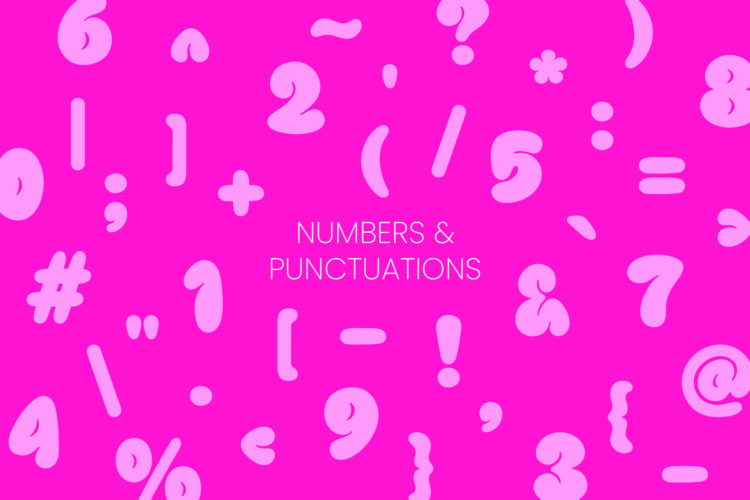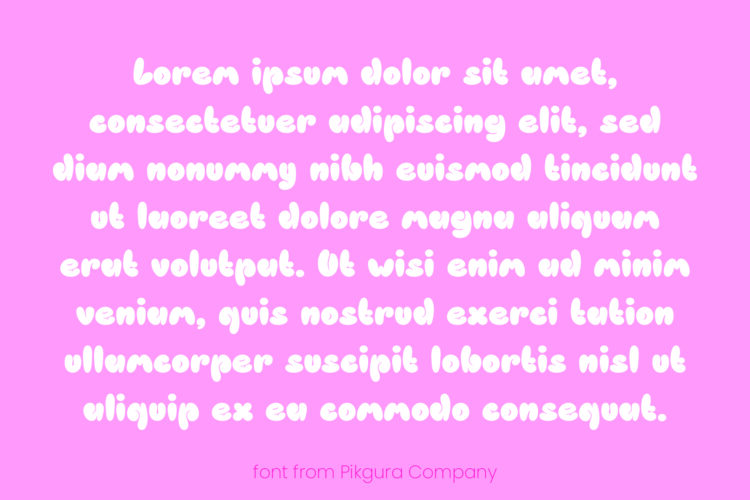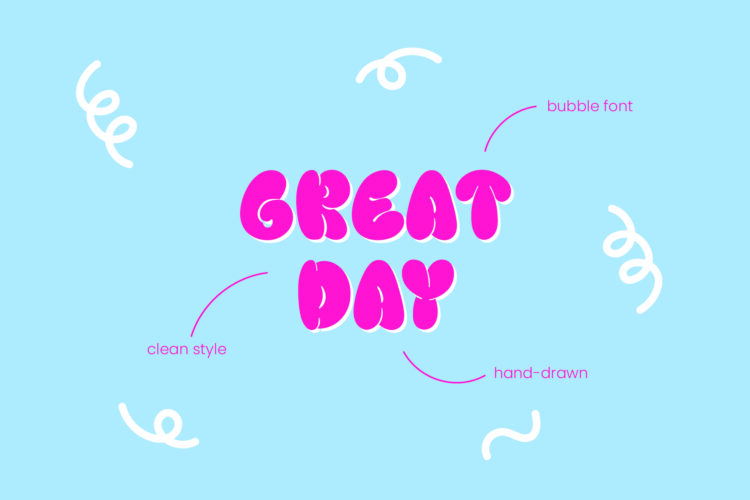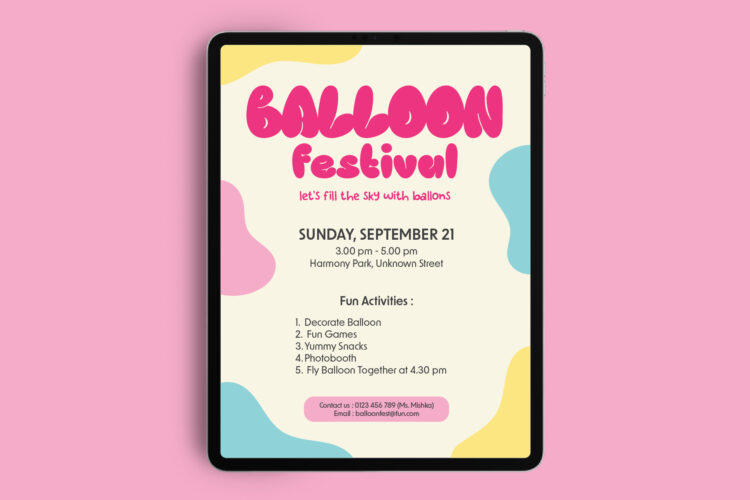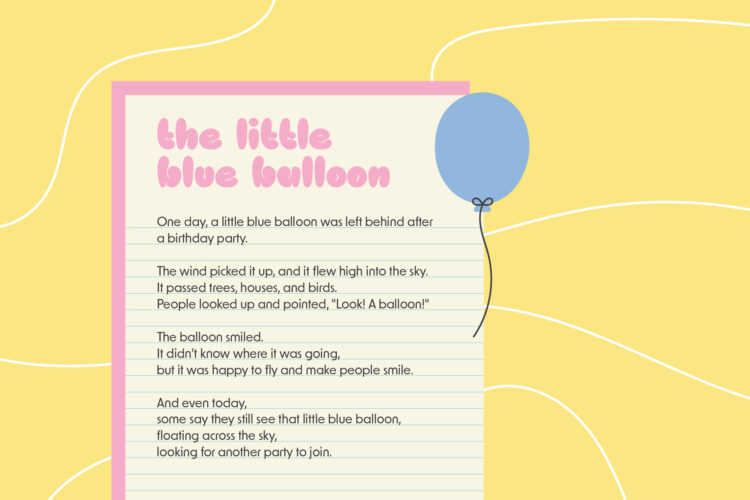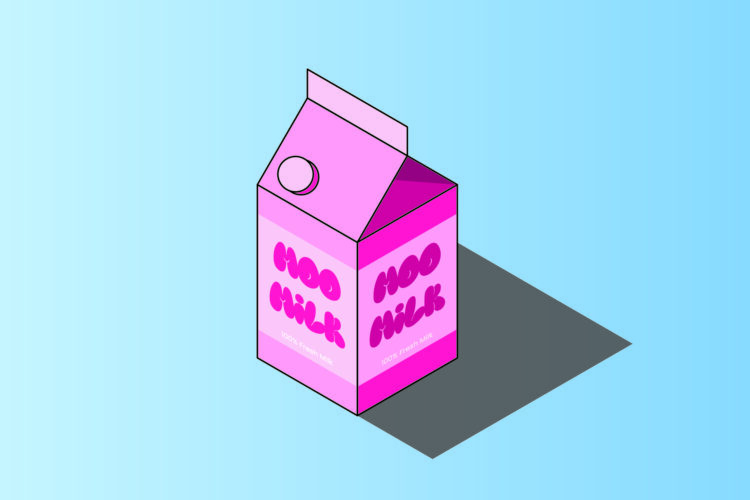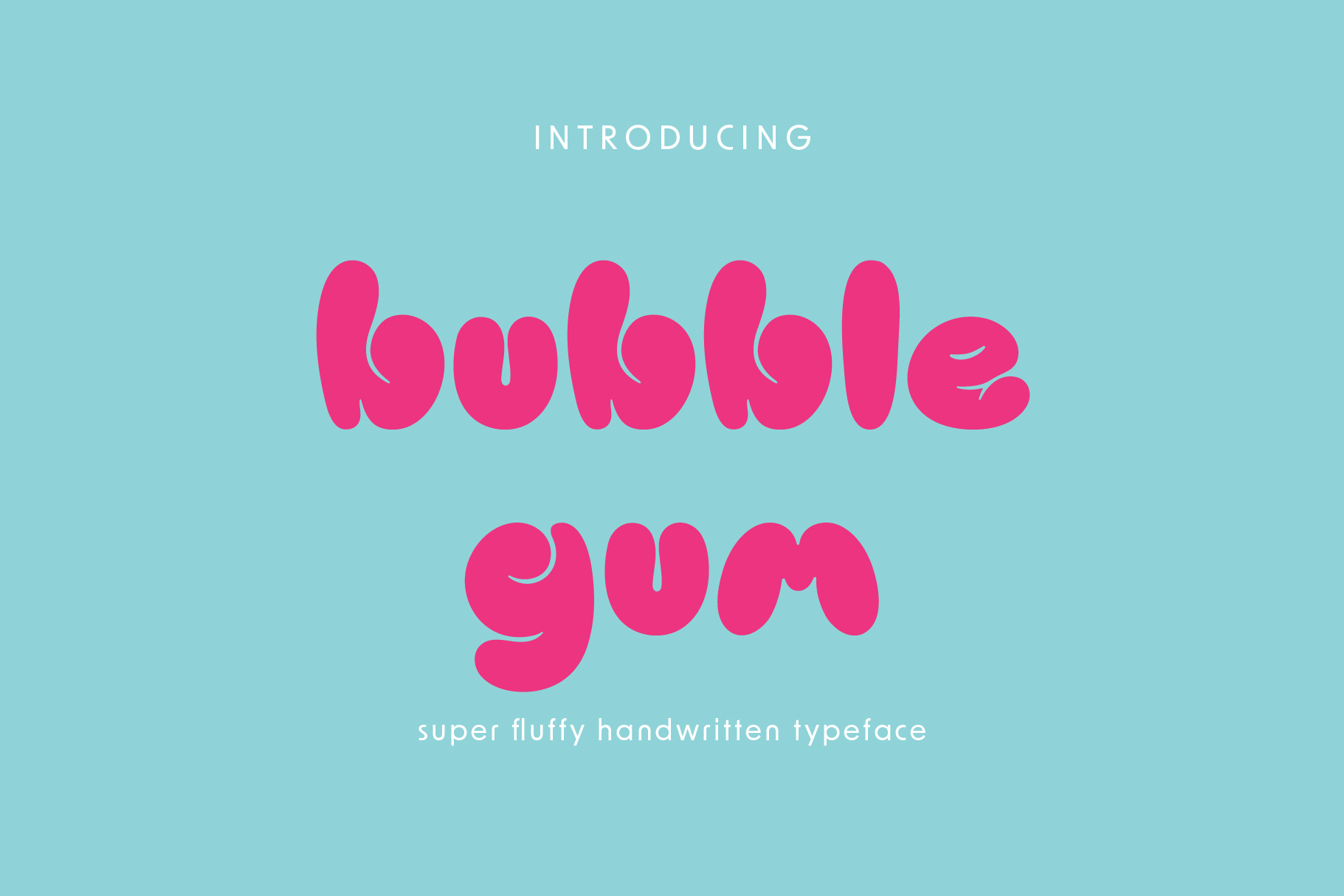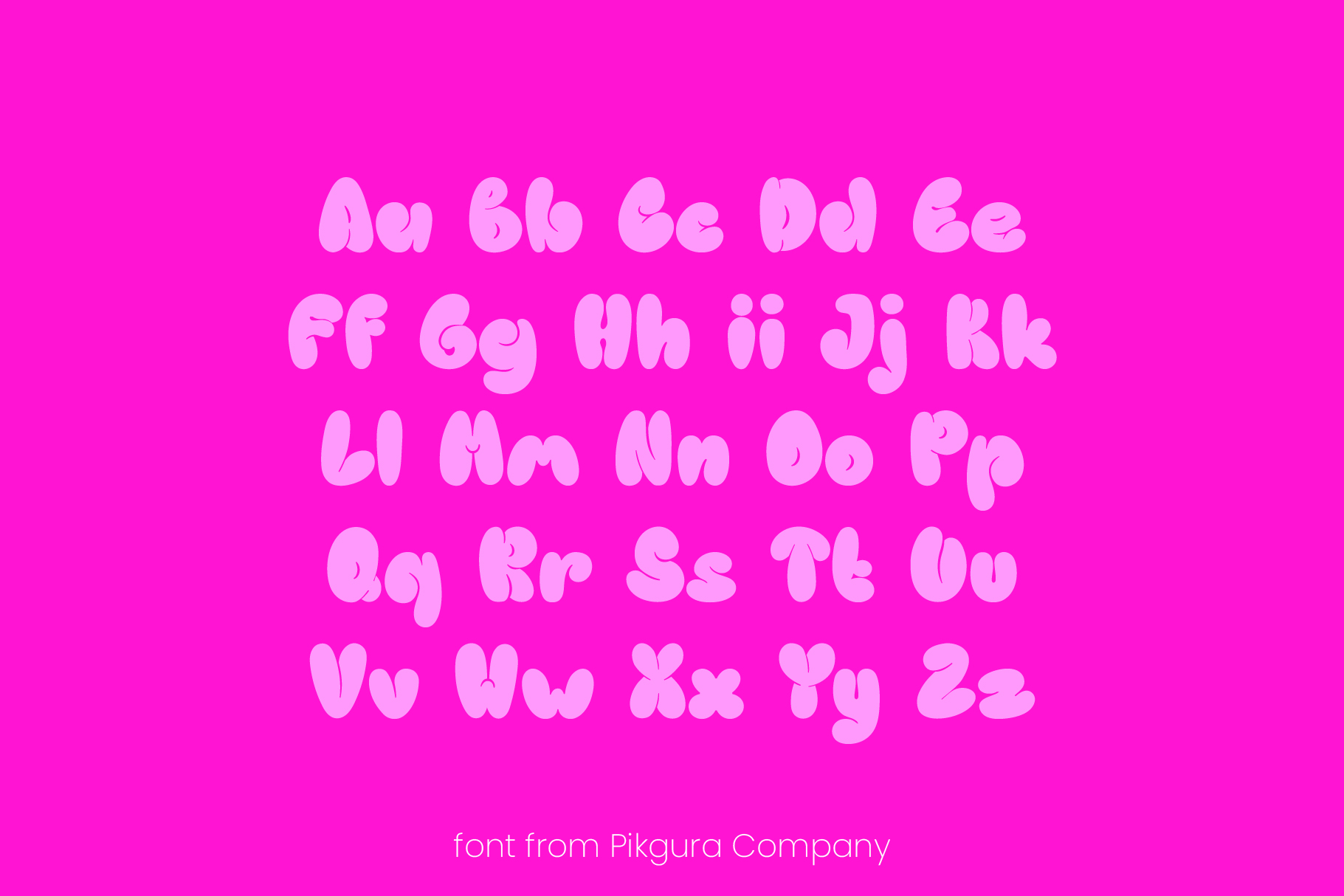
PGR Bubblegum is a playful, handmade font that adds a fun twist to your designs. Its balloon-like characters bring a bubbly charm, making it perfect for greeting cards, posters, stickers, and more. Whether you’re crafting invitations or promotional materials, PGR Bubblegum adds a whimsical touch that stands out.
The font package includes uppercase and lowercase letters, numbers, and basic punctuation, providing a comprehensive set of characters for various design needs. Additionally, it comes with OTF, TTF, and WOFF files, ensuring compatibility with a range of design software and web platforms.